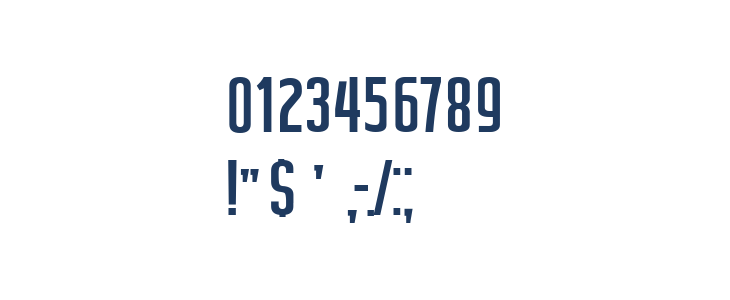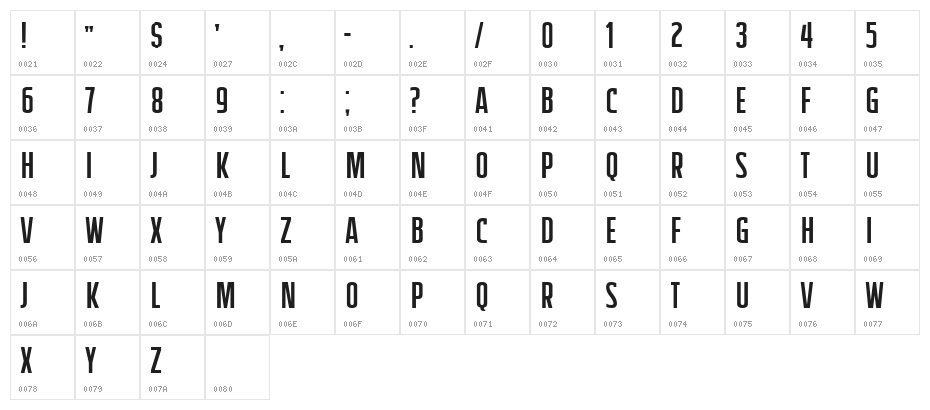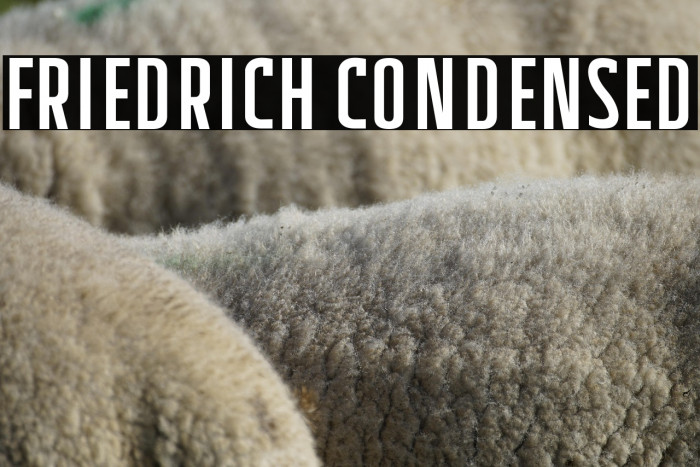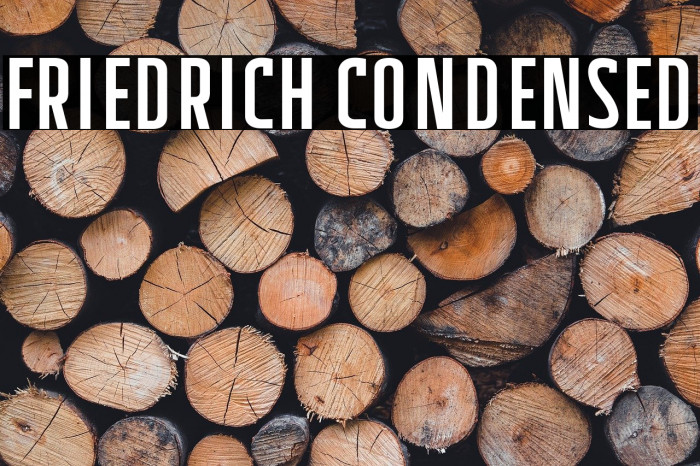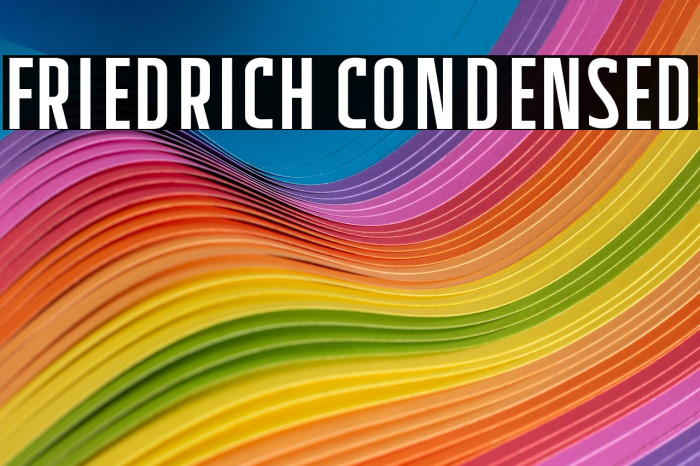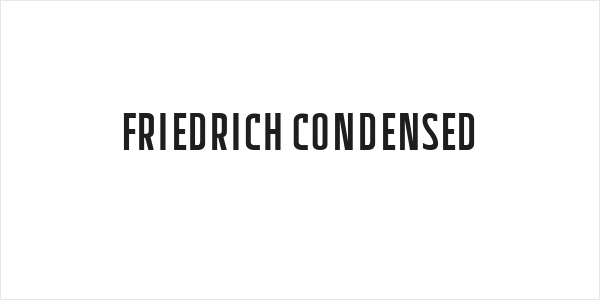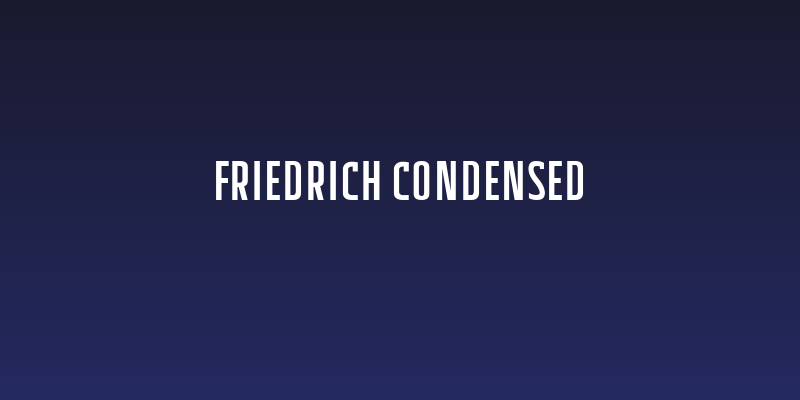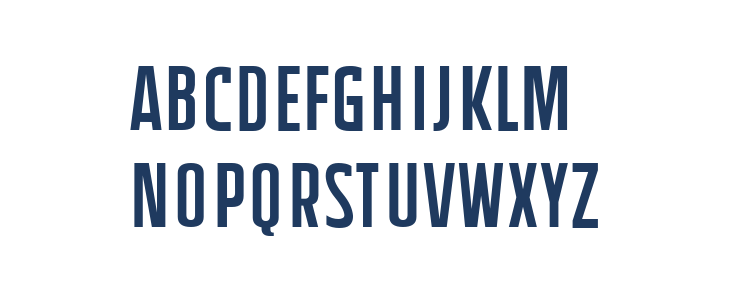
Friedrich Condensed Font
Friedrich Condensed Description
This font features a bold, condensed style with tall, narrow letterforms that convey a strong and assertive presence. The uniform stroke width and clean lines give it a modern and sleek appearance, making it highly legible even at smaller sizes. The uppercase and lowercase letters maintain consistent proportions, while the numerals and special characters are designed to complement the overall aesthetic. The font's condensed nature allows for efficient use of space, making it ideal for headlines and titles where impact is essential.
| Proposed Projects | Ideal for use in headlines, posters, advertising, and branding projects where a strong visual impact is desired. |